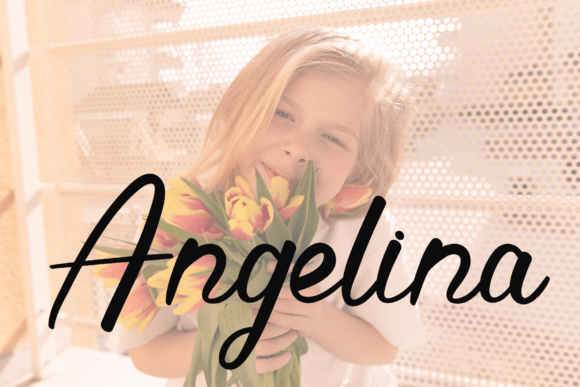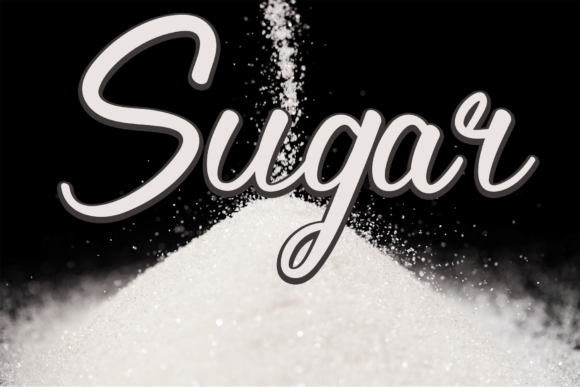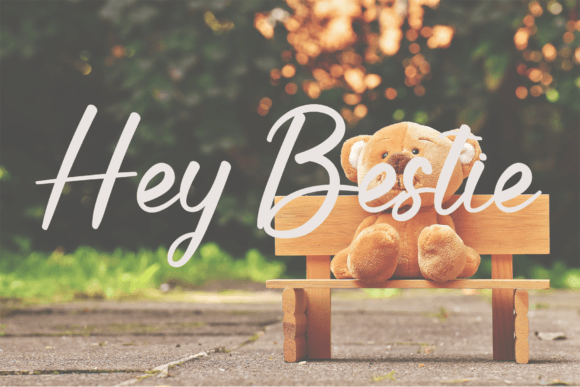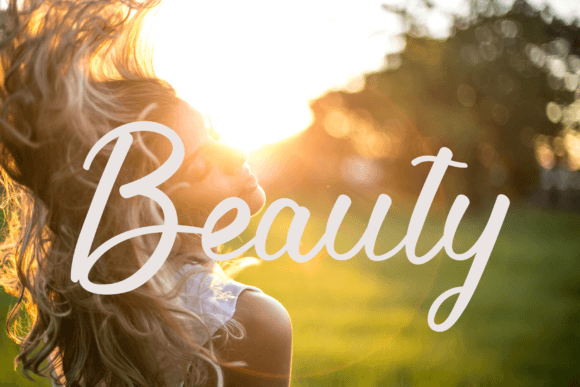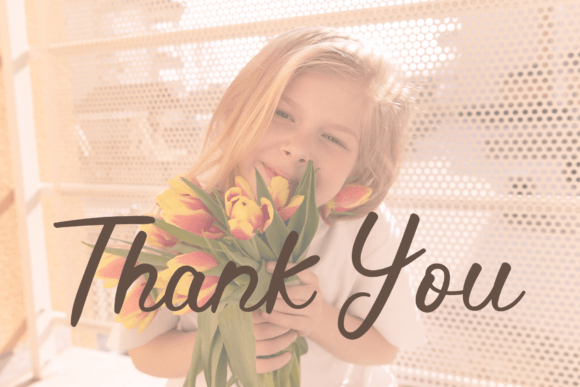
Sweety Font
About Sweety Font
“Sweety” is a fun and friendly handwritten font that brings a contemporary and cheerful vibe to your designs. With its whimsical and slightly quirky style, this font has the power to add a sense of playfulness and liveliness to your creative projects.
One of the standout features of “Sweety” is its ability to infuse your text with a modern and friendly atmosphere. The handwritten design of the font adds a personal and authentic feel to your text, making it a perfect choice for projects that aim to connect with your audience on a warm and engaging level.
This font’s versatility allows it to be used across a wide range of design contexts. Whether you’re working on digital designs, presentations, greeting cards, or any other project that could benefit from a touch of cheerfulness, “Sweety” brings a sense of creativity and liveliness to your work.
Visualize using “Sweety” for your greeting cards and notice how it adds a joyful and friendly vibe to your messages. Imagine incorporating this font into your digital designs, making your content more approachable and relatable. When you add “Sweety” to your projects, you can confidently expect results that are bright and full of character.
In conclusion, “Sweety” is more than just a font; it’s a versatile design tool that brings a contemporary and friendly touch to your creative projects. Its fun and whimsical handwritten style make it an ideal choice for a wide range of applications, ensuring that your designs are both inviting and memorable. Embrace “Sweety” as a font that brings a smile to your work and brightens up each of your designs with its cheerful and modern atmosphere.